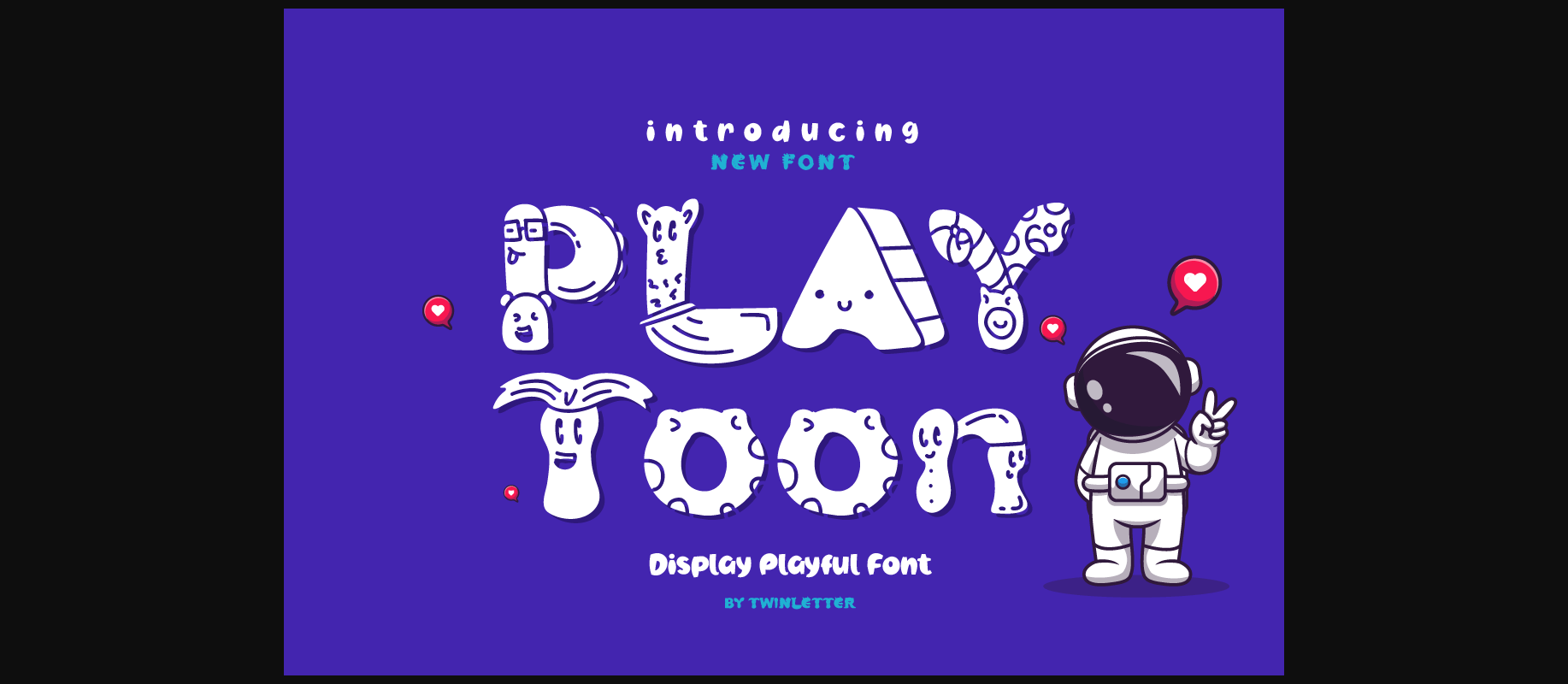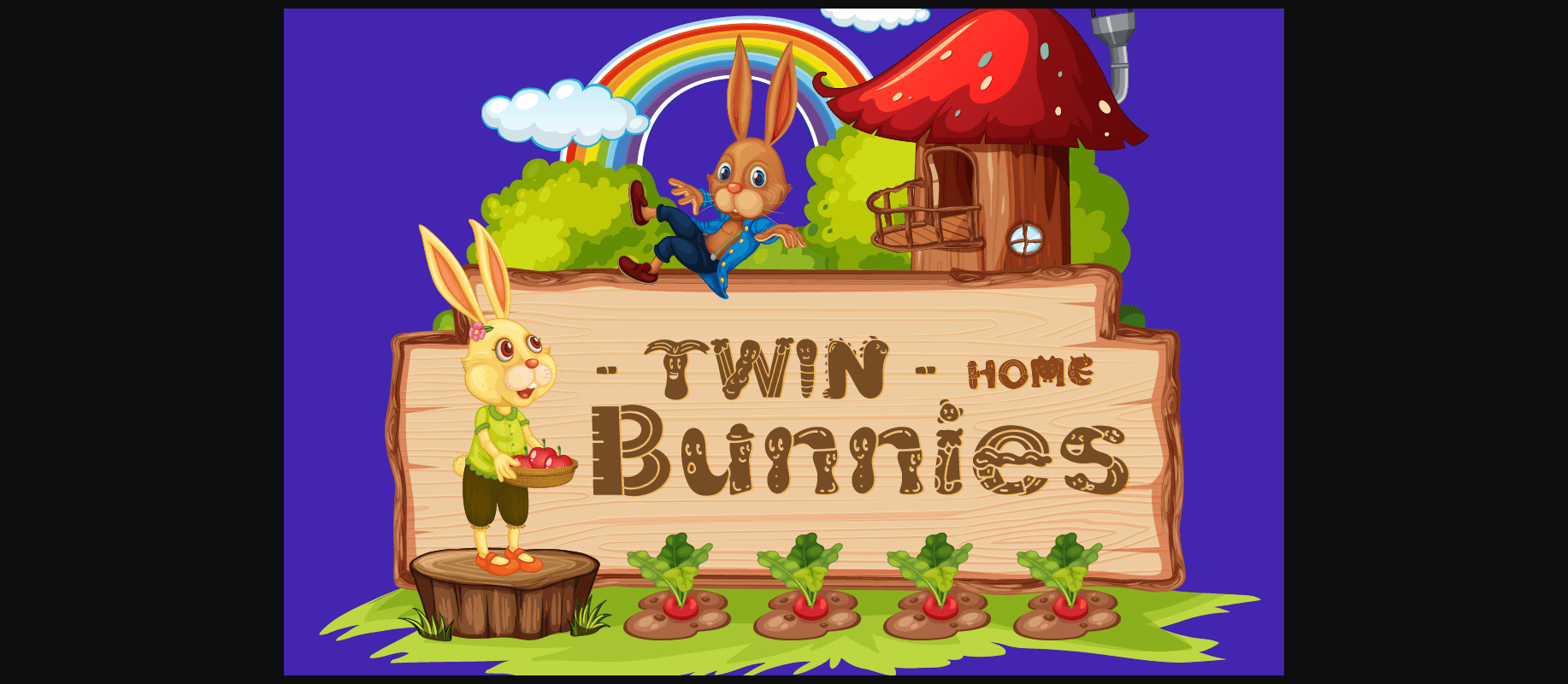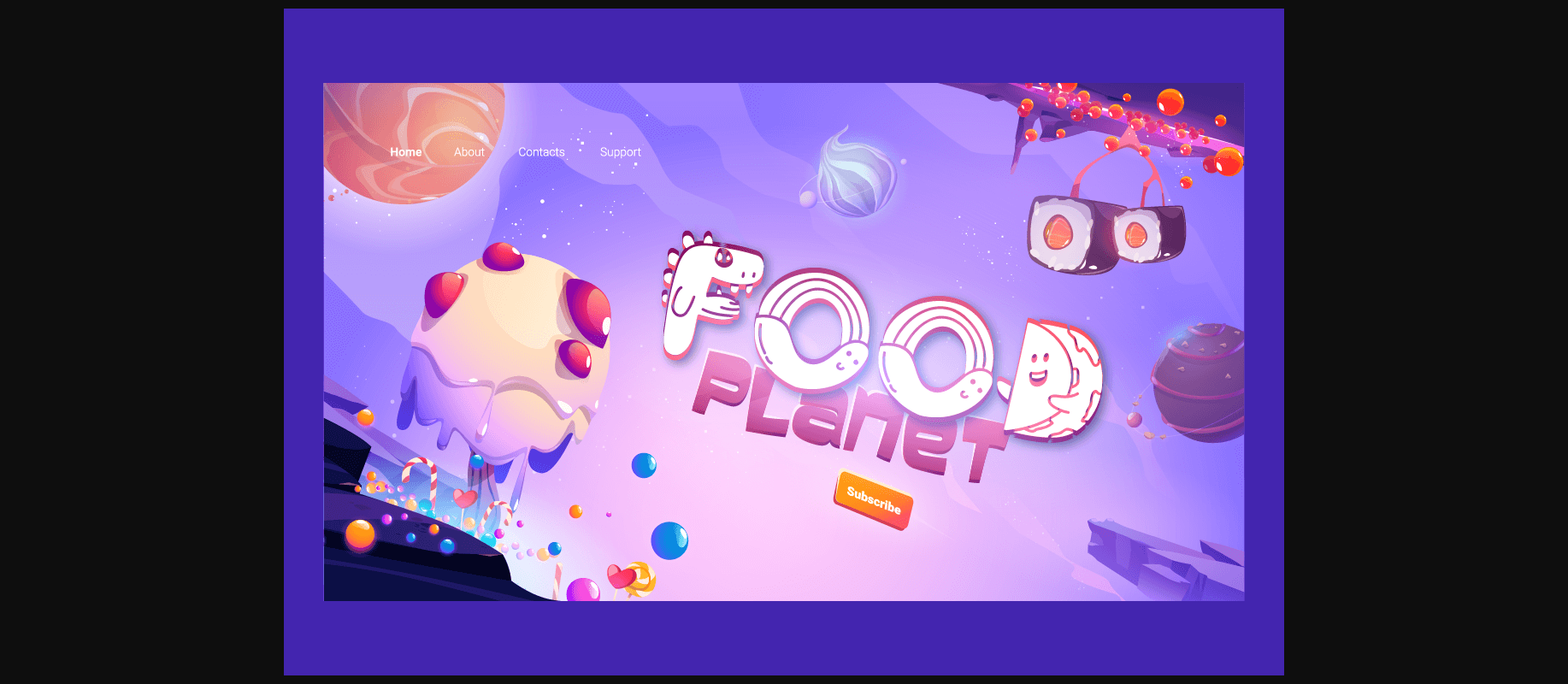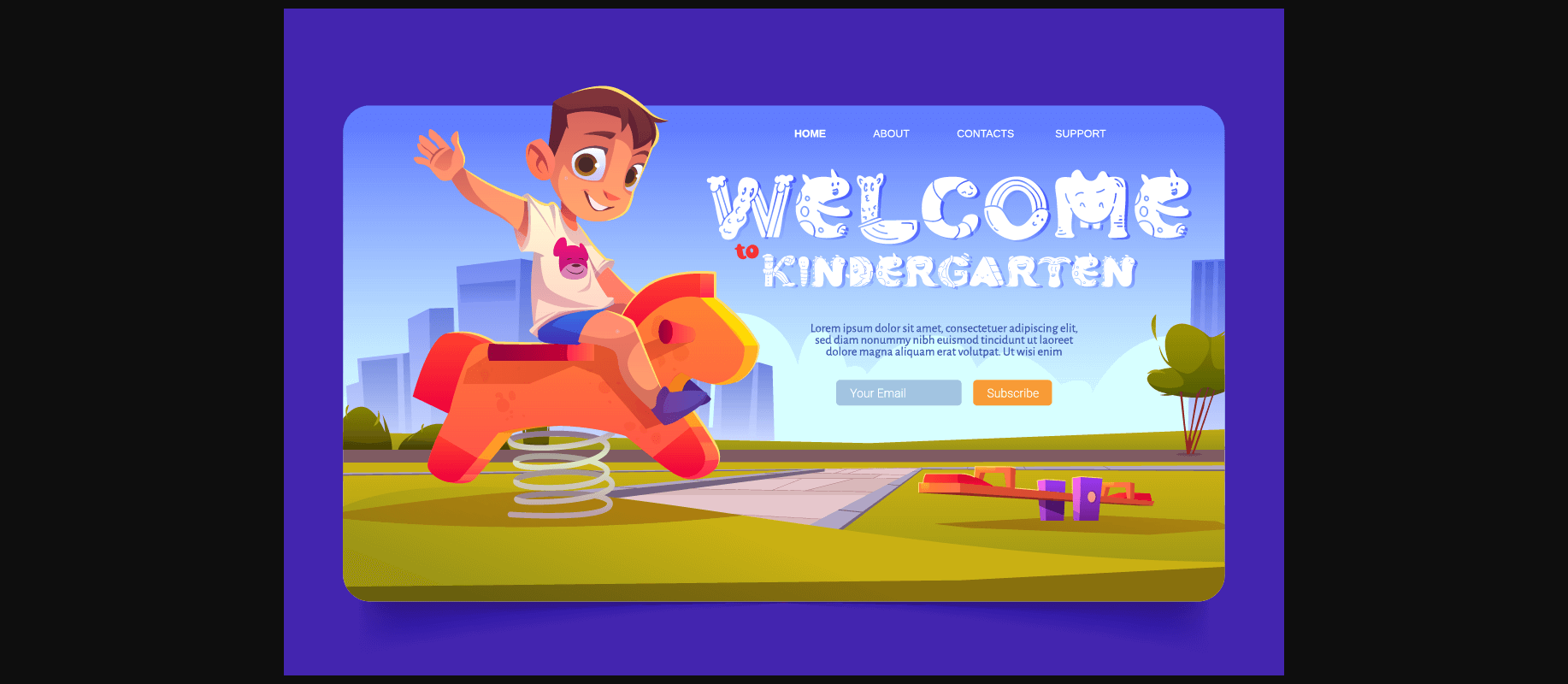
About Playtoon Font
Playtoon is a cool and quirky decorative font. It embodies playfulness and authenticity and is the perfect choice for any children activity or school project.